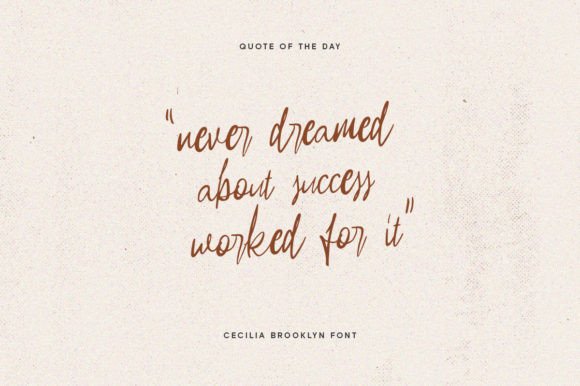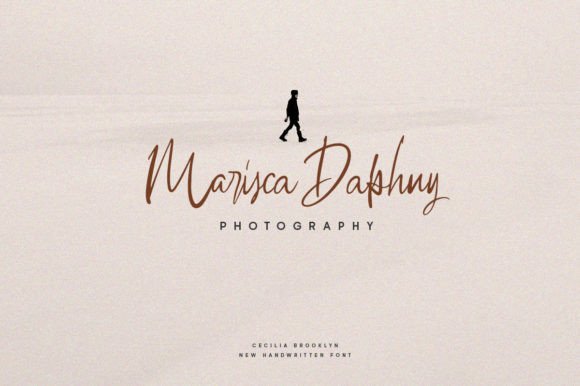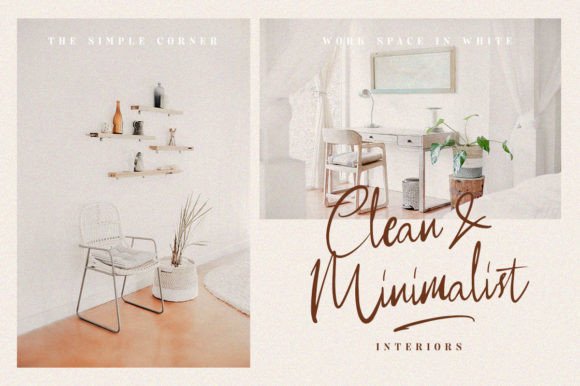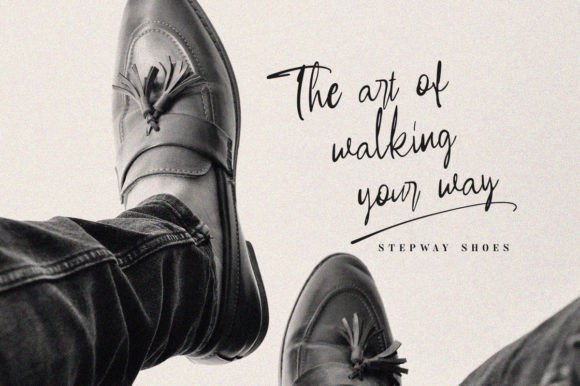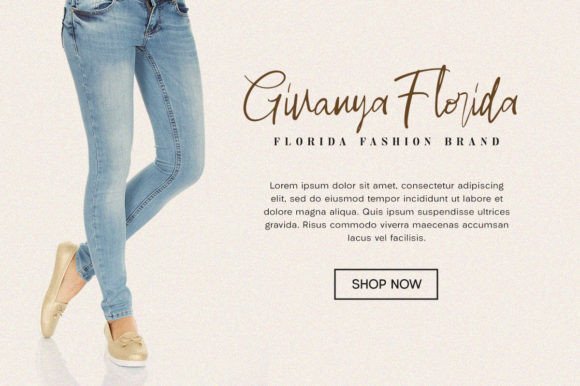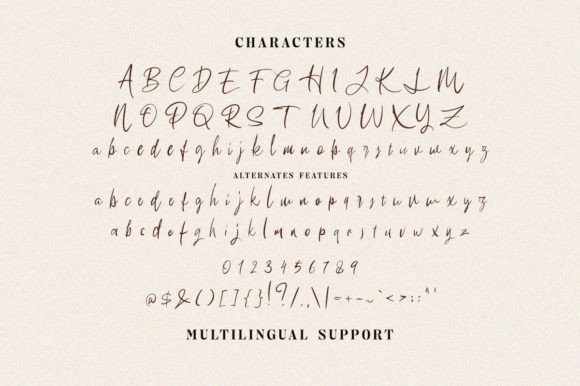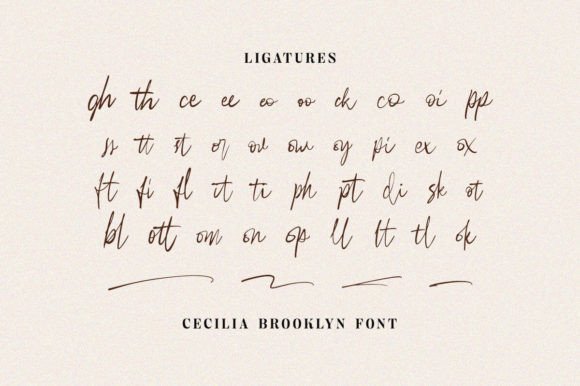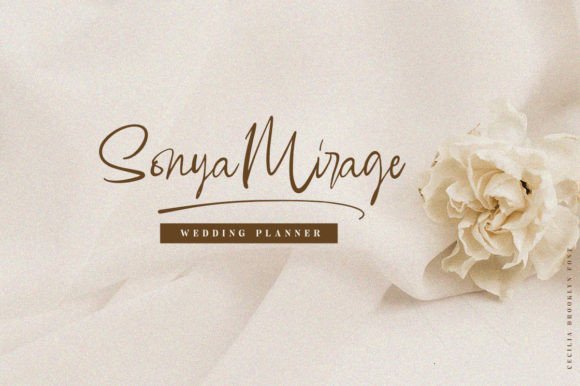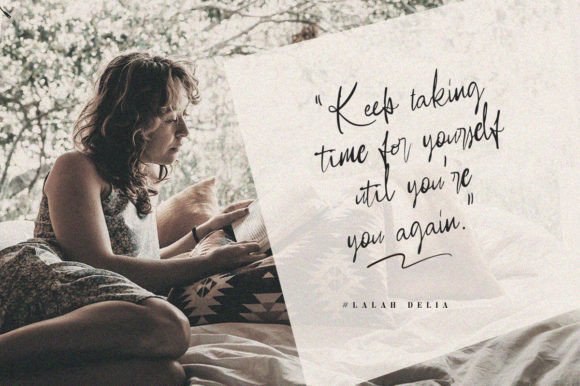
Cecilia Brooklyn Font
Add a feminine and elegant touch with the Cecilia Brooklyn font. This signature script features many beautiful ligatures, giving your designs a natural and flowing handwritten look. It is perfect for wedding invitations, thank you cards, quotes, greeting cards, logos, business cards, and any design that needs a personalized handwritten feel.
The Cecilia Brooklyn font combines sophistication with readability. Its smooth and graceful strokes create a polished and refined appearance. This makes it ideal for both formal and casual projects where elegance is essential.
You can use this font for branding, social media posts, packaging, invitations, and more. Its ligatures add an artistic flair that enhances the emotional impact and visual appeal of your work.
The font is PUA encoded, allowing easy access to all glyphs and ligatures. This feature gives you extra creative flexibility and allows you to add beautiful decorative elements to your text effortlessly.
Despite its delicate style, the Cecilia Brooklynfont remains highly readable at various sizes. Whether you use it for bold headlines or subtle accents, it adapts beautifully to your needs.
Using this font will help your designs stand out with a refined and memorable look. If you want your projects to look polished and heartfelt, the Cecilia Brooklynfont is an excellent choice.
In summary, the Cecilia Brooklynfont fits many creative applications. From wedding projects and greeting cards to logos and branding, it brings elegance and personality. Download it today and create stunning, stylish designs with a feminine signature script.